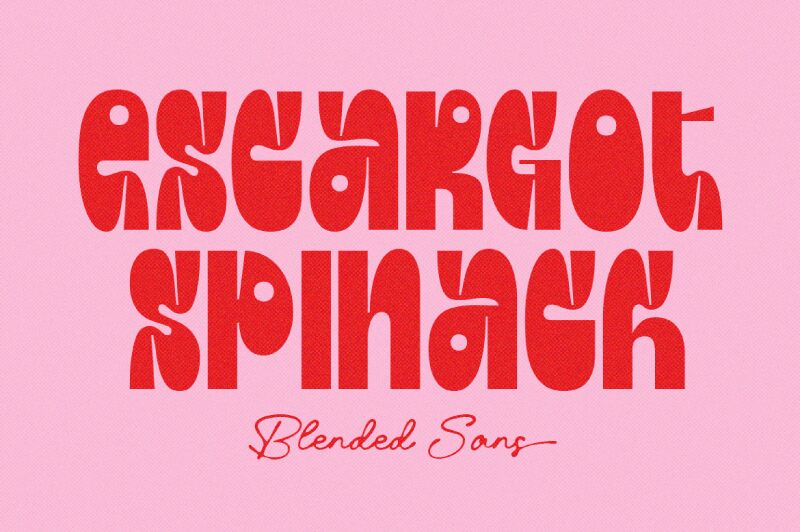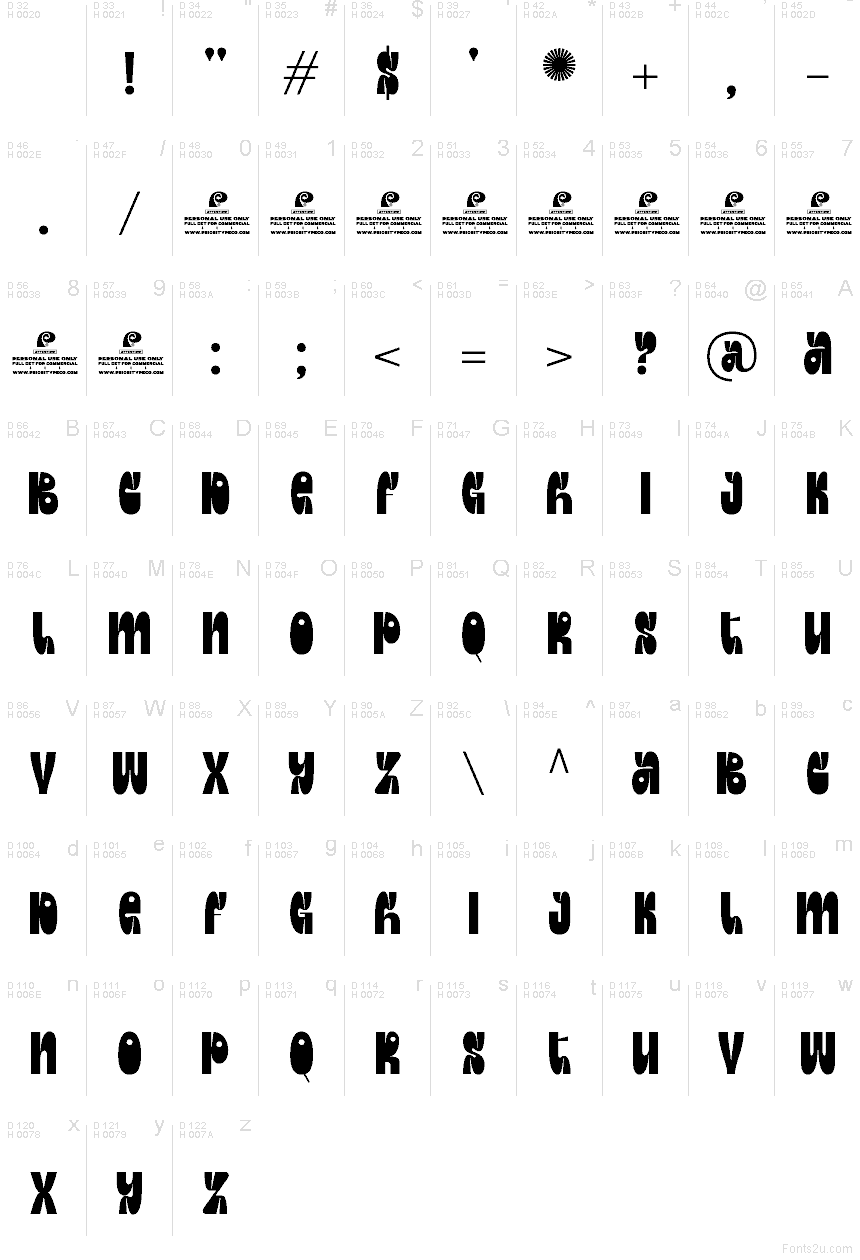
Escargot Spinach DEMO
Escargot Spinach font by Prioritype Co is a free groovy display typeface that looks like it’s been stretched, squished, and swirled into bold, inky blobs. Each letter feels like a chunky vinyl sticker with unexpected cutouts and curves, giving words a wavy, almost liquid rhythm. The tight spacing and heavy forms create a dense, hypnotic texture that instantly pulls the eye and refuses to blend into the background.
Using Escargot Spinach, headlines become graphic shapes as much as text, which works beautifully for posters, psychedelic gig flyers, album covers, streetwear branding, zines, and social media graphics. This free font shines when set large, letting those bulbous curves and carved-out spaces really breathe. For balance, pair it with a clean, neutral sans serif at small sizes so Escargot Spinach can stay the loud, groovy voice on the page.